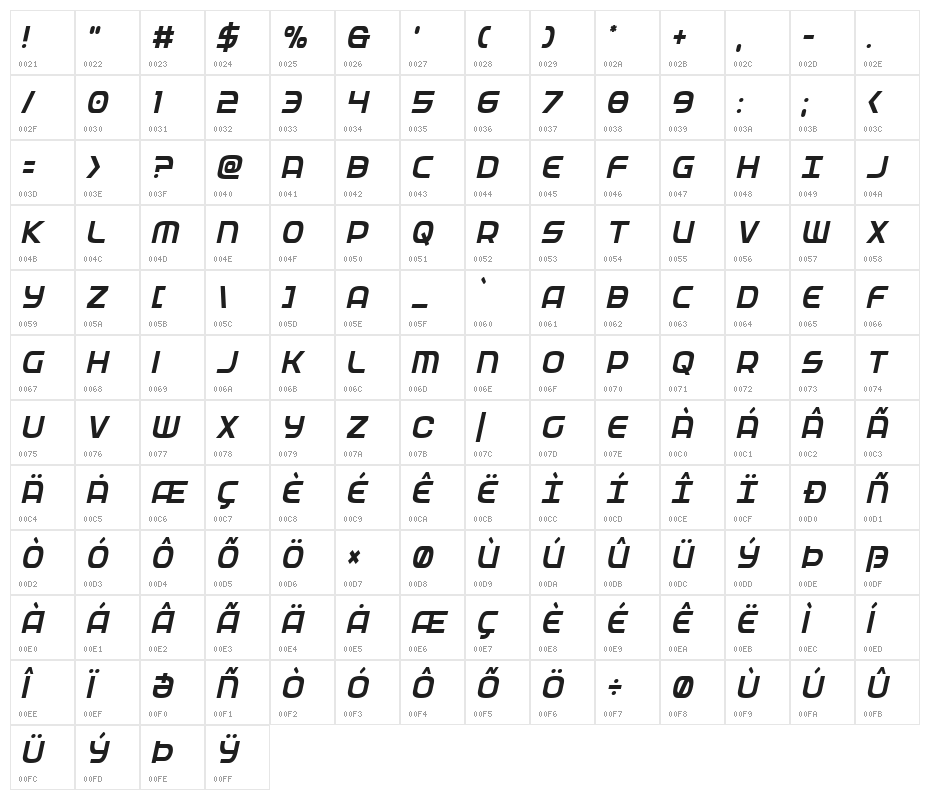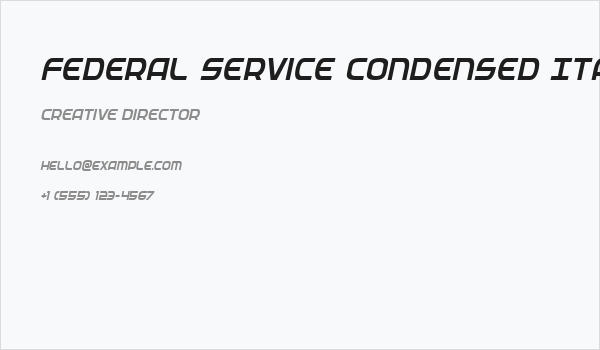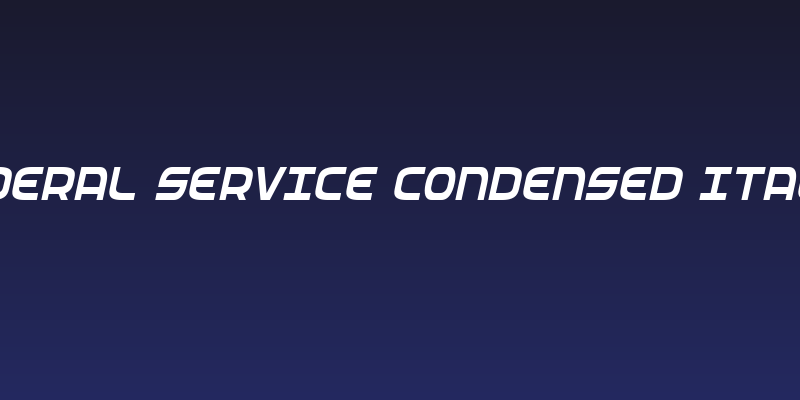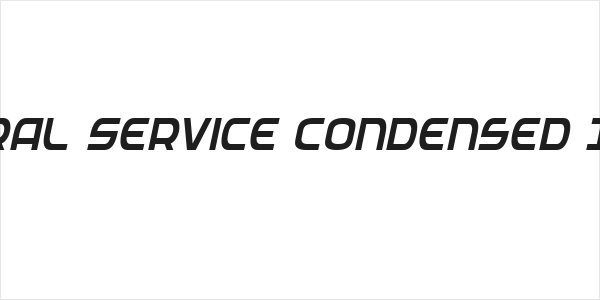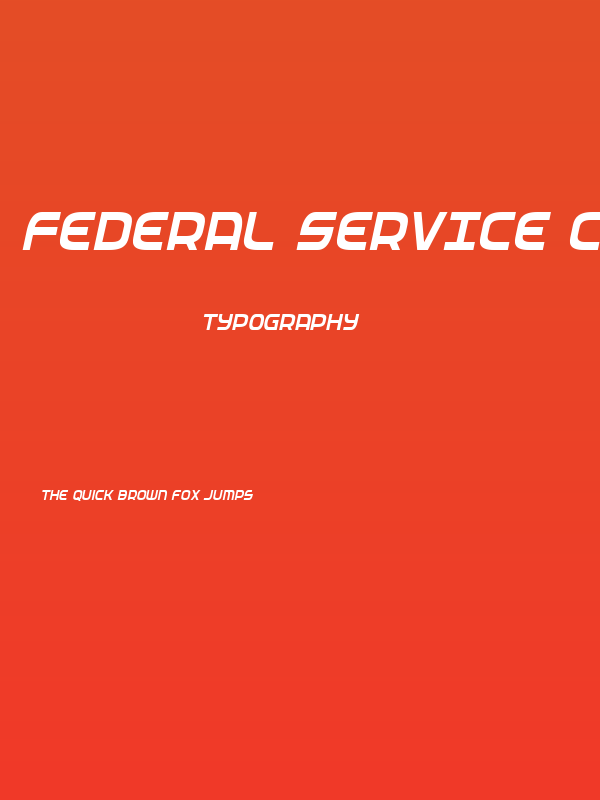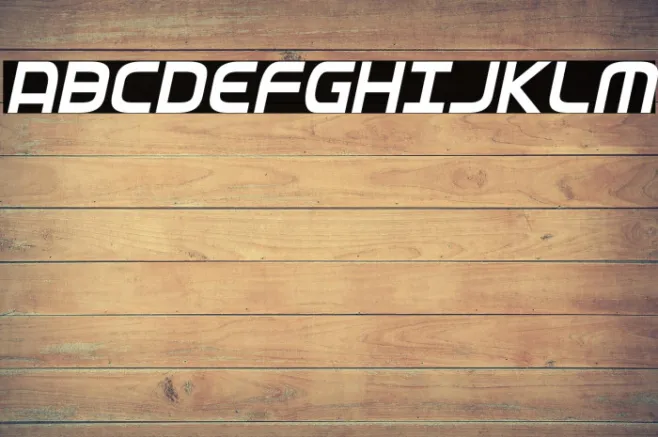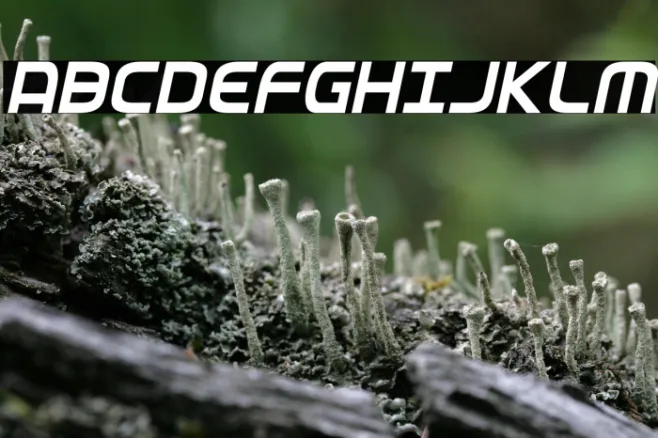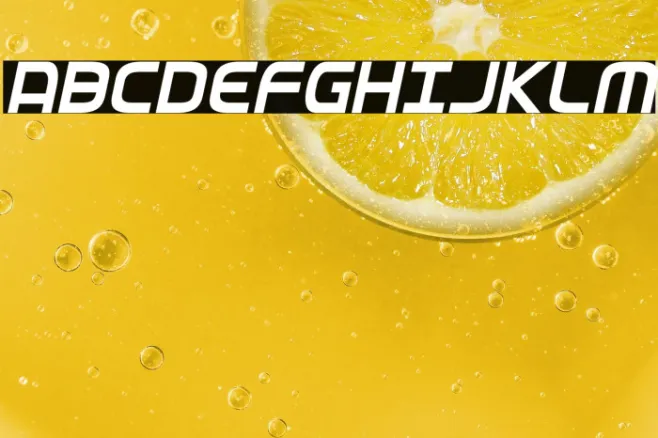
Federal Service Condensed Italic Font
Federal Service Condensed Italic Description
This font features a modern, sleek design with a condensed and italicized style. The characters are slightly slanted, giving a dynamic and forward-moving appearance. The strokes are consistent in weight, providing a uniform look across all characters. The font maintains a geometric structure, with clean lines and sharp angles, making it highly legible. The spacing between characters is tight, which enhances its compact and efficient look. This style is suitable for conveying a sense of speed and modernity.
| Proposed Projects | Ideal for use in branding, advertising, and editorial design where a modern and dynamic look is desired. |